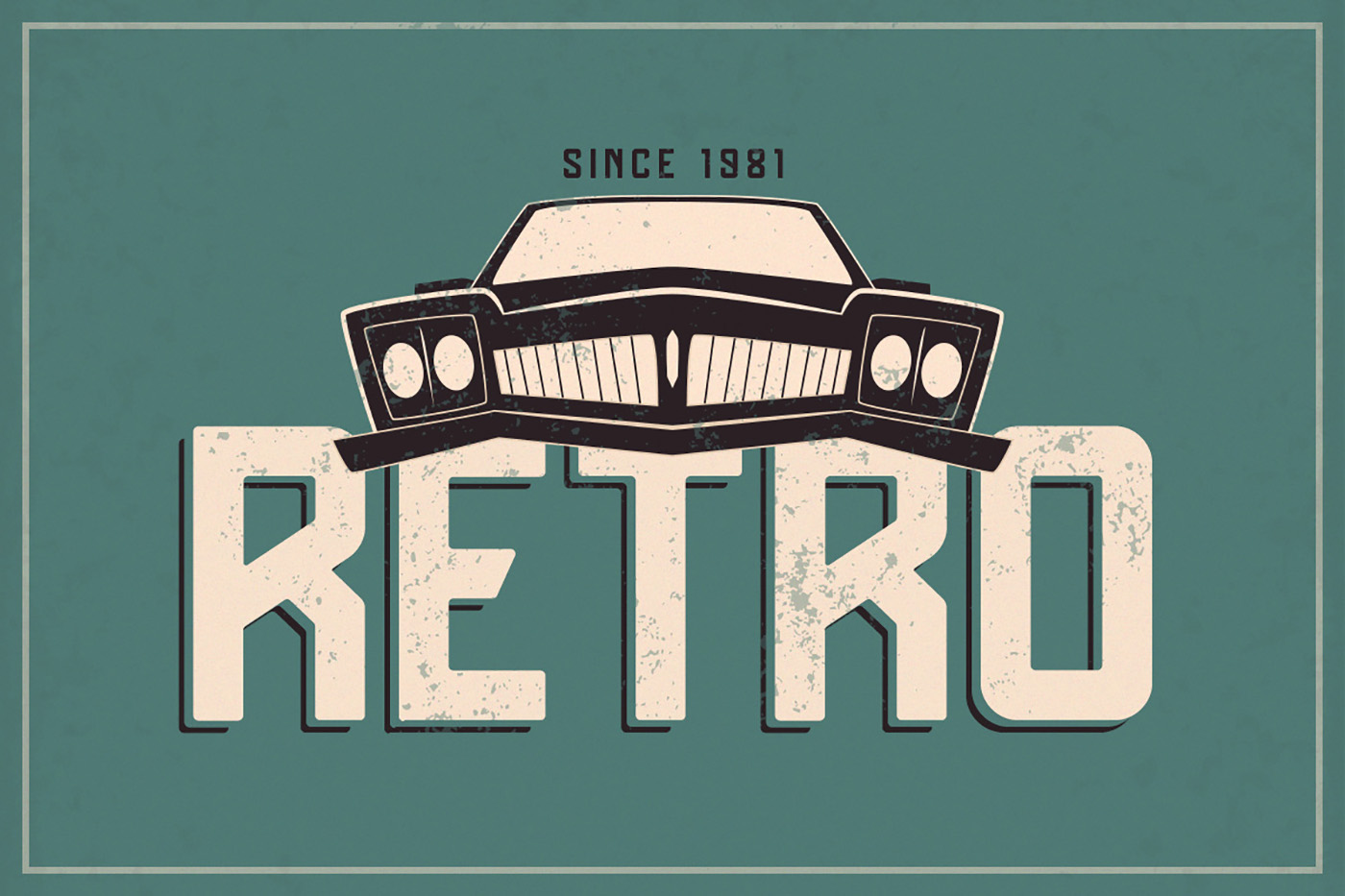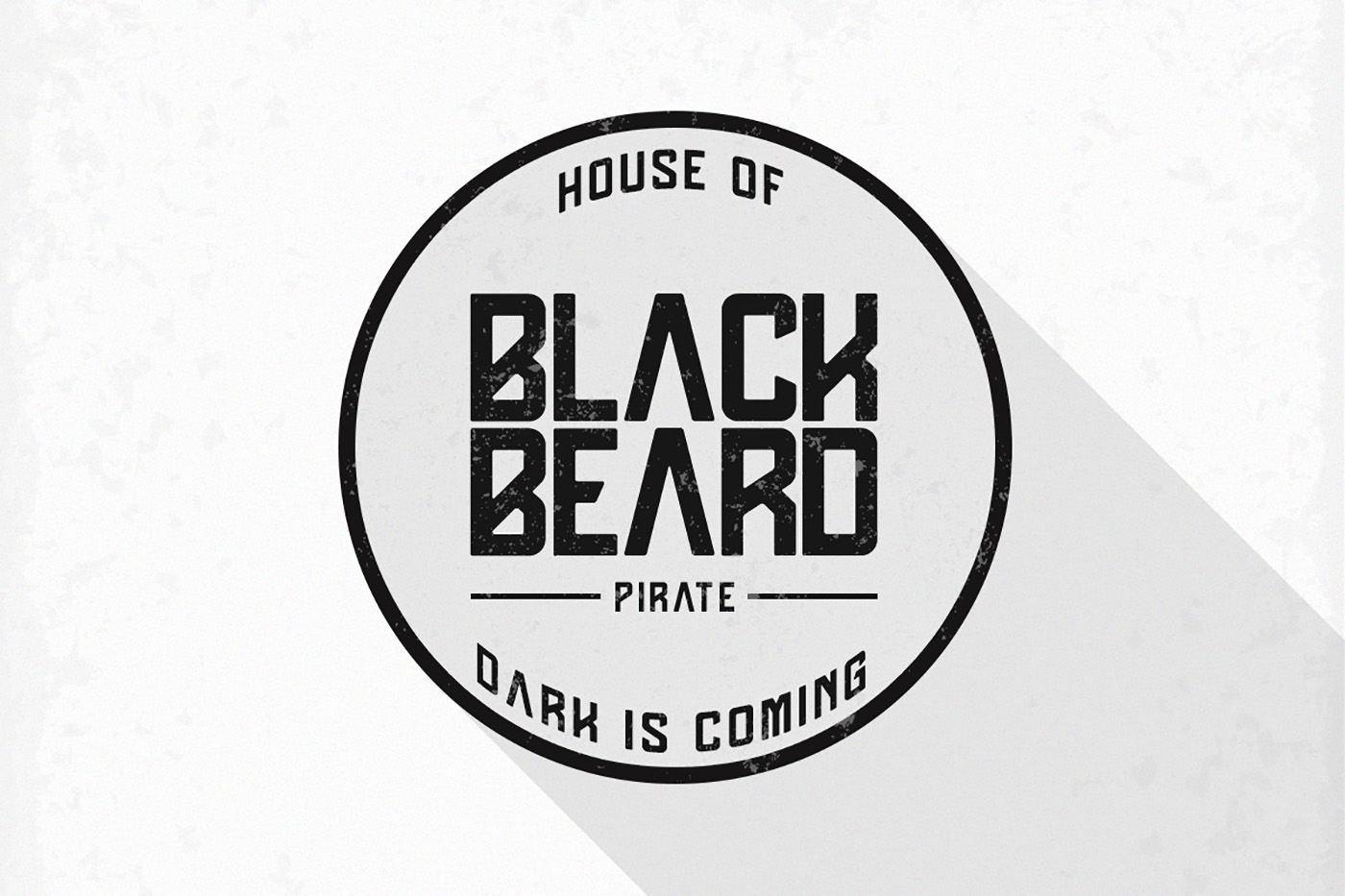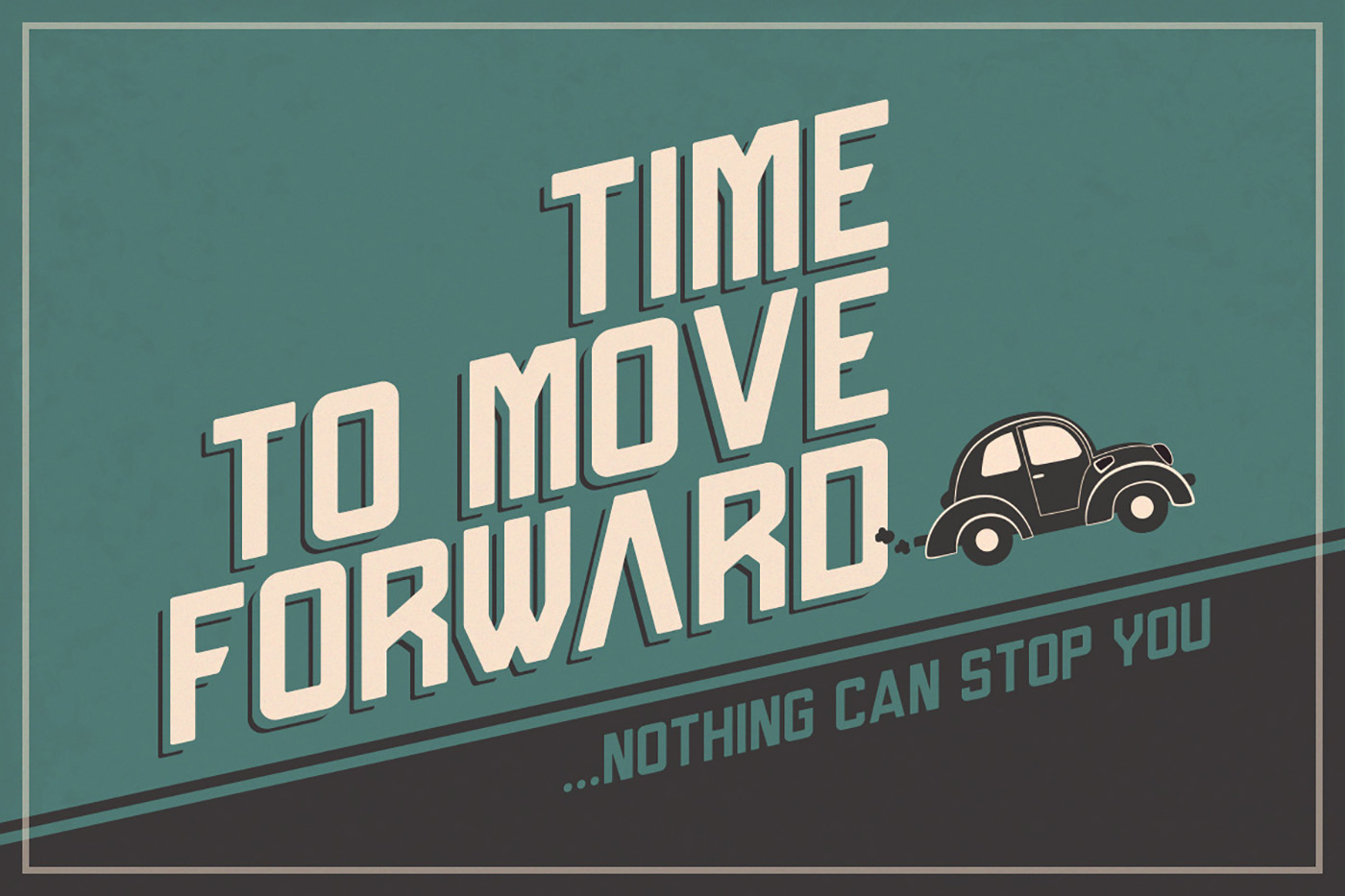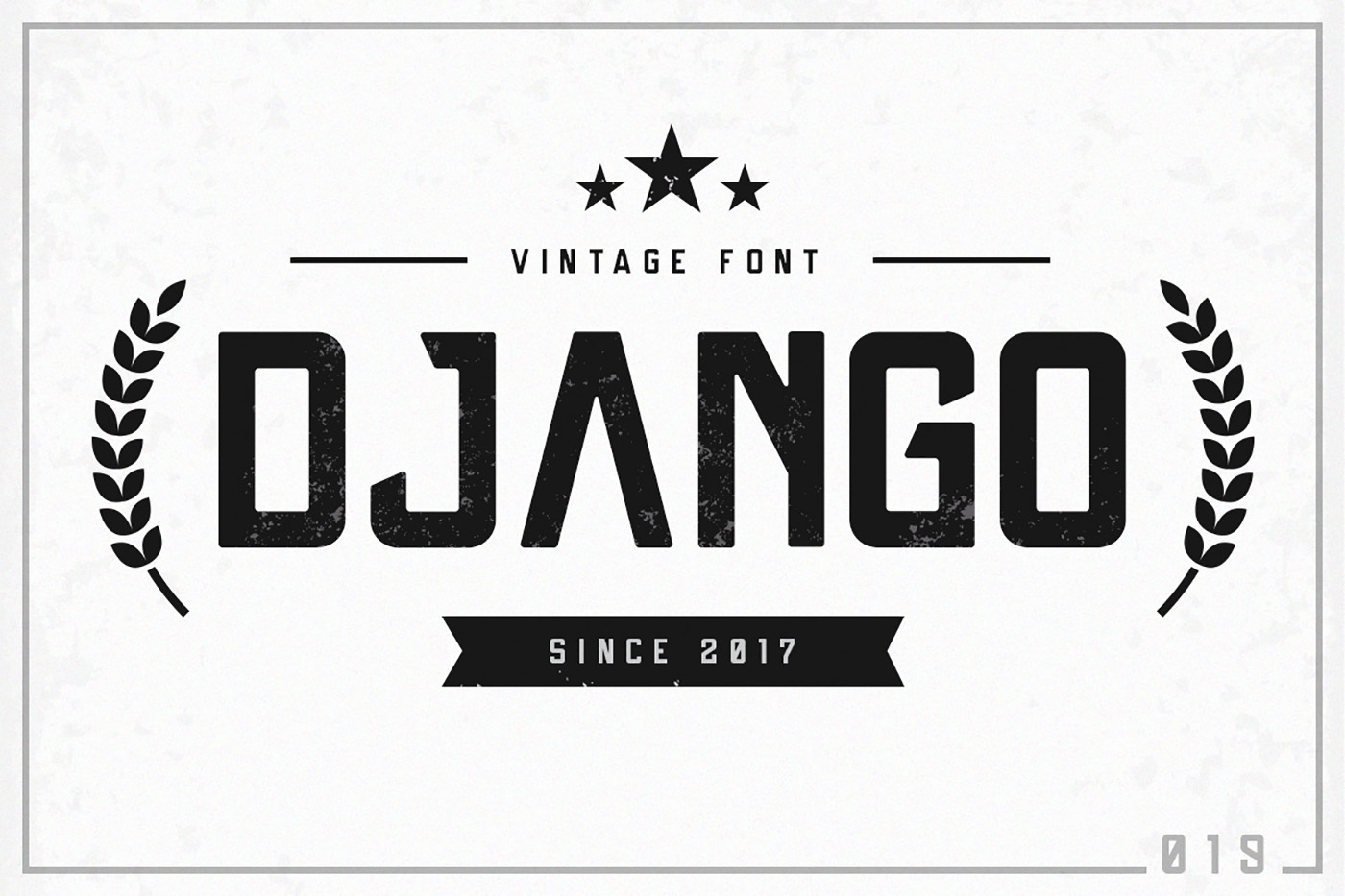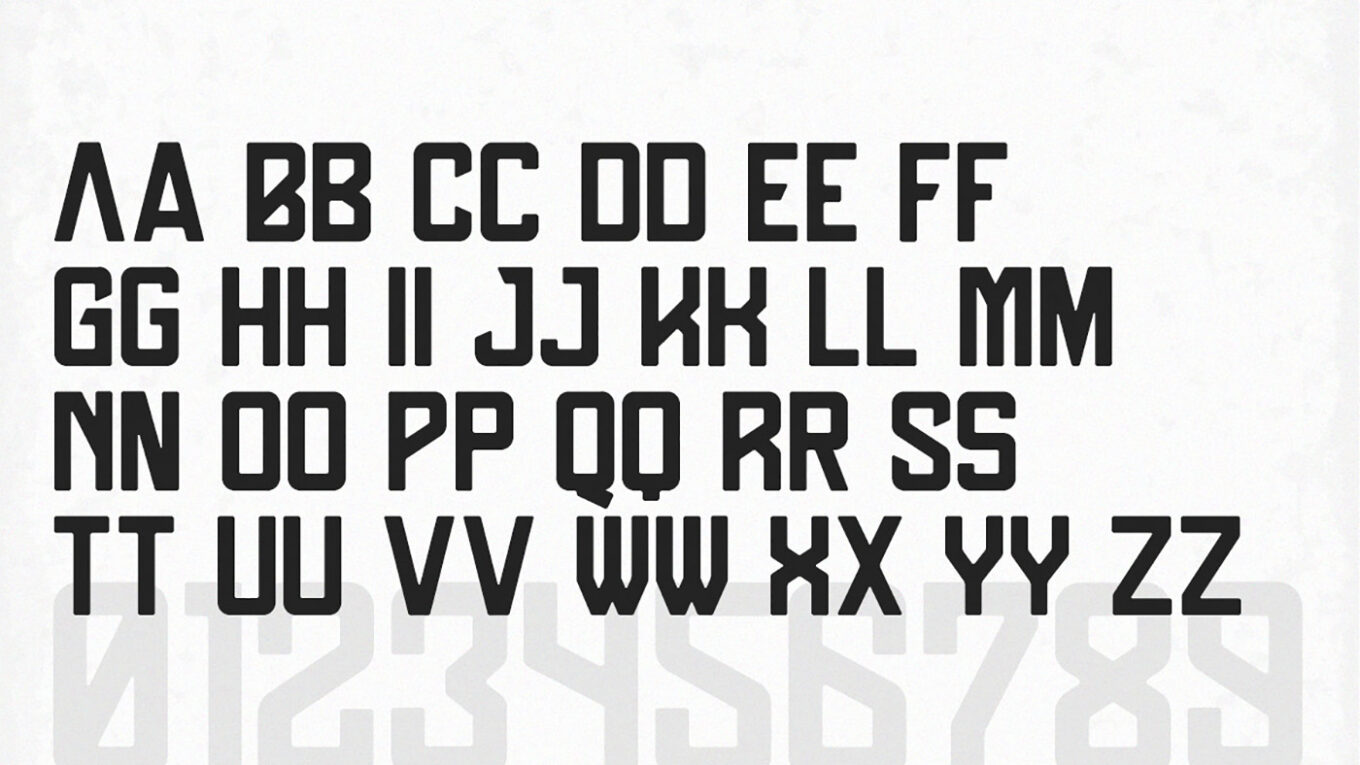
Django Font: The Ultimate Retro-Inspired Typeface for Designers
In the world of typography, fonts play a crucial role in bringing a design to life. With the vast array of fonts available, it can be overwhelming to choose the perfect one for your project. However, if you’re looking for a font that exudes a retro vibe while maintaining a clean and modern appeal, look no further than the Django Font. In this article, we’ll dive into the world of Django Font, exploring its features, benefits, and uses, making it a must-have for designers and crafters alike.
What is Django Font?
Django Font is a stunning display font that combines a robust weight with a clean sans-serif appeal. Its unique blend of retro and modern elements makes it an ideal choice for a wide range of design projects, from retro-inspired designs to on-trend concepts. With its bold and eye-catching appearance, Django Font is sure to make a statement in any design.
Key Features of Django Font
- Retro-Inspired Design: Django Font boasts a retro vibe that’s perfect for designs that require a nostalgic feel.
- Clean Sans-Serif Appeal: The font’s clean lines and sans-serif design ensure that it remains modern and sleek.
- Robust Weight: Django Font’s bold weight makes it perfect for headlines, titles, and display text.
- Versatile: The font is adaptable to various design concepts, from retro-inspired designs to modern and trendy projects.
Benefits of Using Django Font
- Adds Visual Interest: Django Font’s unique design and bold weight make it perfect for adding visual interest to your design.
- Enhances Readability: The font’s clean lines and sans-serif design ensure that your text remains readable, even at smaller sizes.
- Perfect for Display Text: Django Font is ideal for display text, such as headlines, titles, and captions.
- Easy to Pair: The font’s versatility makes it easy to pair with other fonts, ensuring a cohesive look and feel.
Uses of Django Font
Django Font is perfect for a wide range of design projects, including:
- Retro-Inspired Designs: Use Django Font to create designs that evoke a nostalgic feel, such as vintage posters, advertisements, and packaging.
- Modern and Trendy Concepts: The font’s clean lines and sans-serif design make it perfect for modern and trendy designs, such as fashion brands, technology startups, and lifestyle blogs.
- Display Text: Use Django Font for display text, such as headlines, titles, and captions, to add visual interest and emphasis.
- Crafting and DIY Projects: Django Font is perfect for crafting and DIY projects, such as handmade cards, invitations, and scrapbooking.
- Experiment with Font Sizes: Django Font looks great at various font sizes, so experiment to find the perfect size for your design.
- Play with Color: The font’s bold weight and clean lines make it perfect for use with bright and bold colors.
- Pair with Other Fonts: Django Font is easy to pair with other fonts, so don’t be afraid to experiment with different font combinations.
In conclusion, Django Font is an amazingly appealing retro font that’s perfect for designers and crafters alike. Its unique blend of retro and modern elements, robust weight, and clean sans-serif appeal make it an ideal choice for a wide range of design projects. Whether you’re creating retro-inspired designs or modern and trendy concepts, Django Font is sure to make a statement. So why wait? Add Django Font to your font collection today and take your designs to the next level!